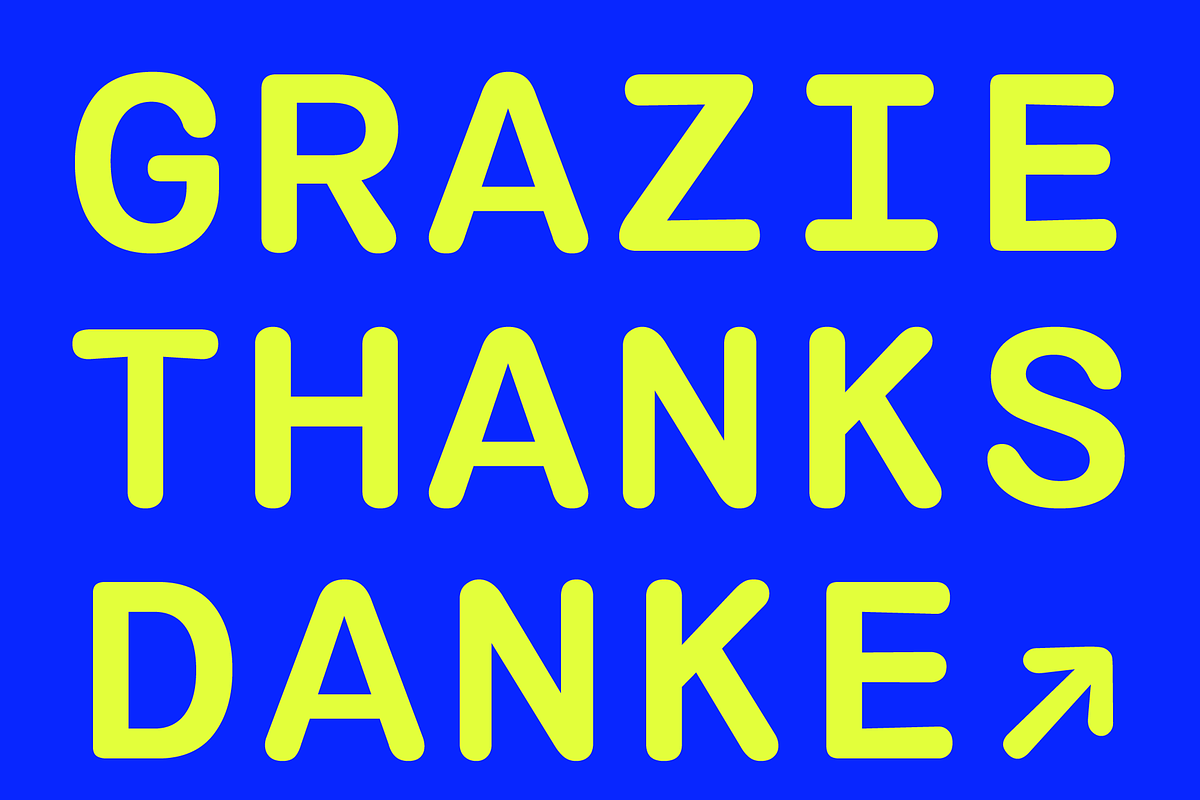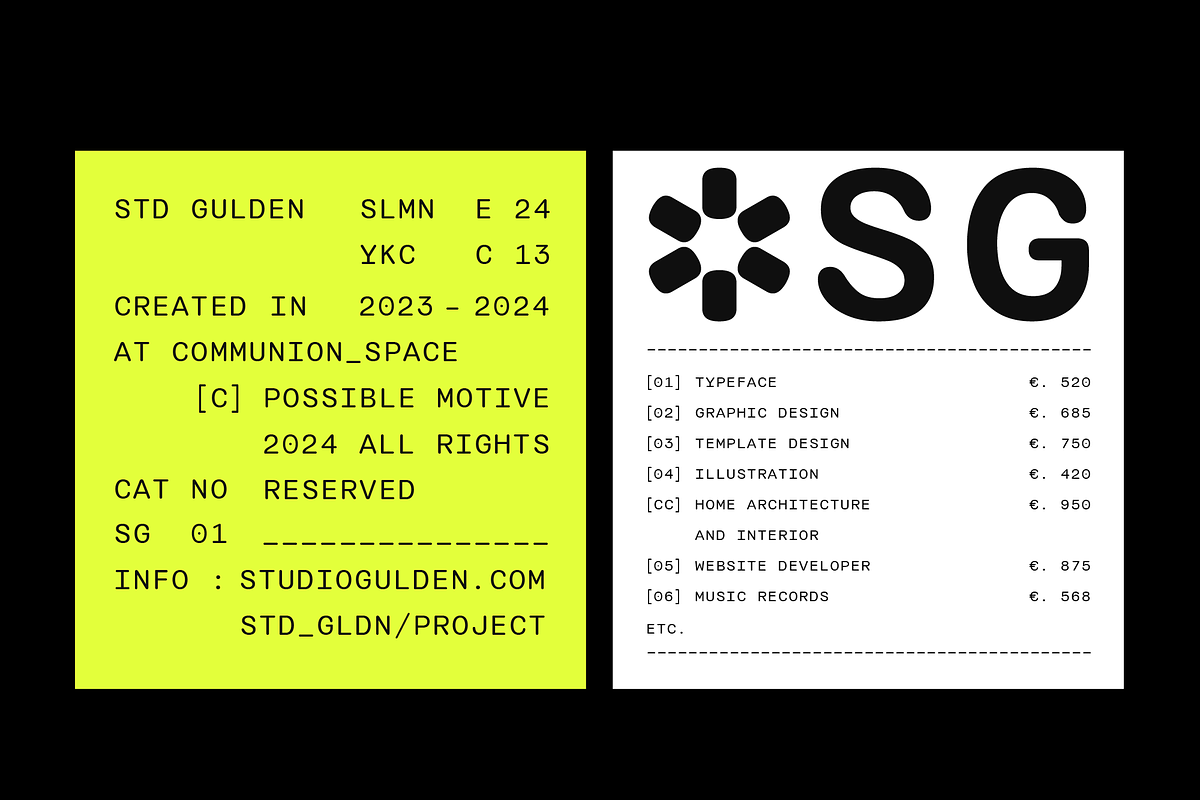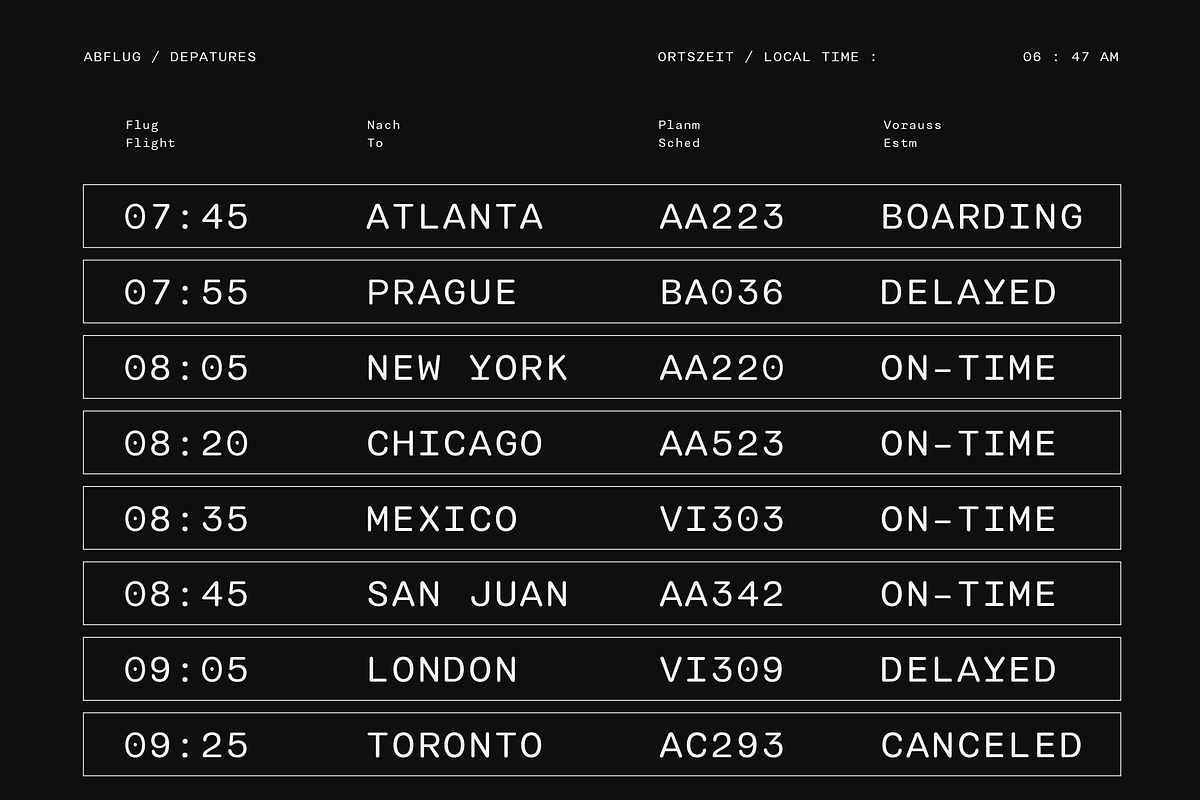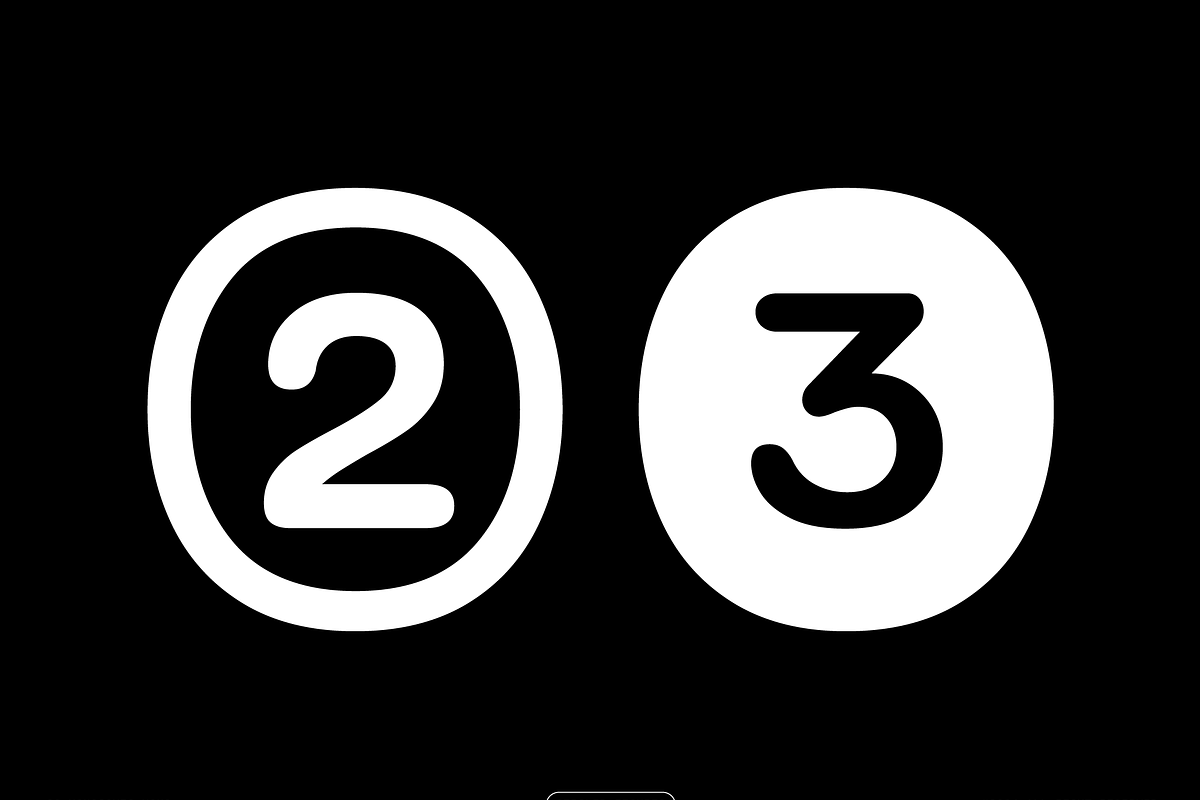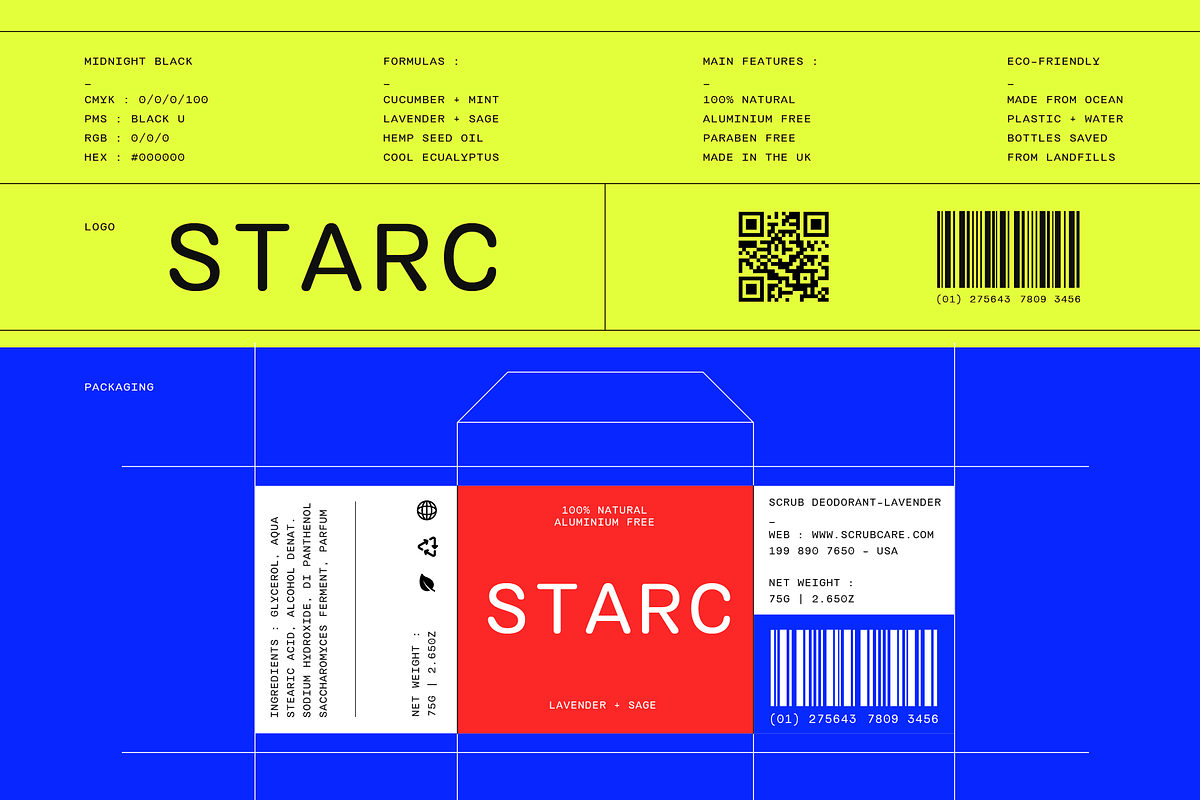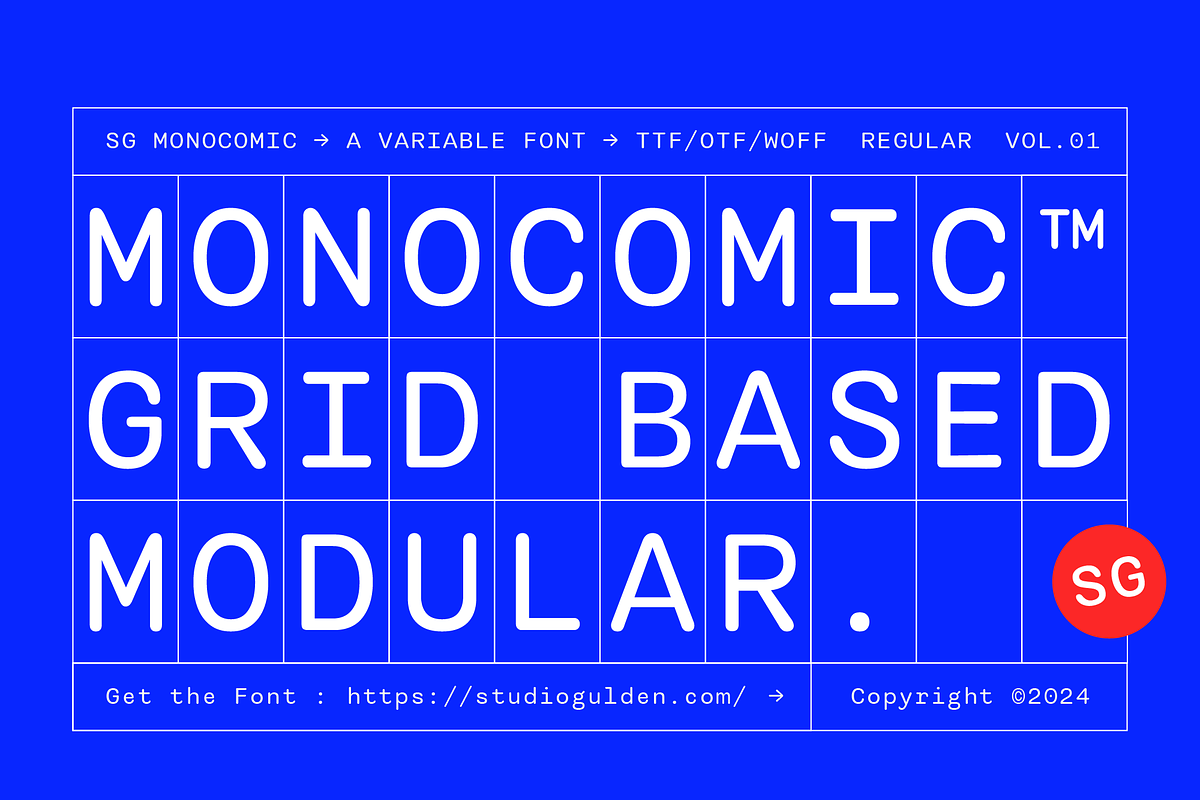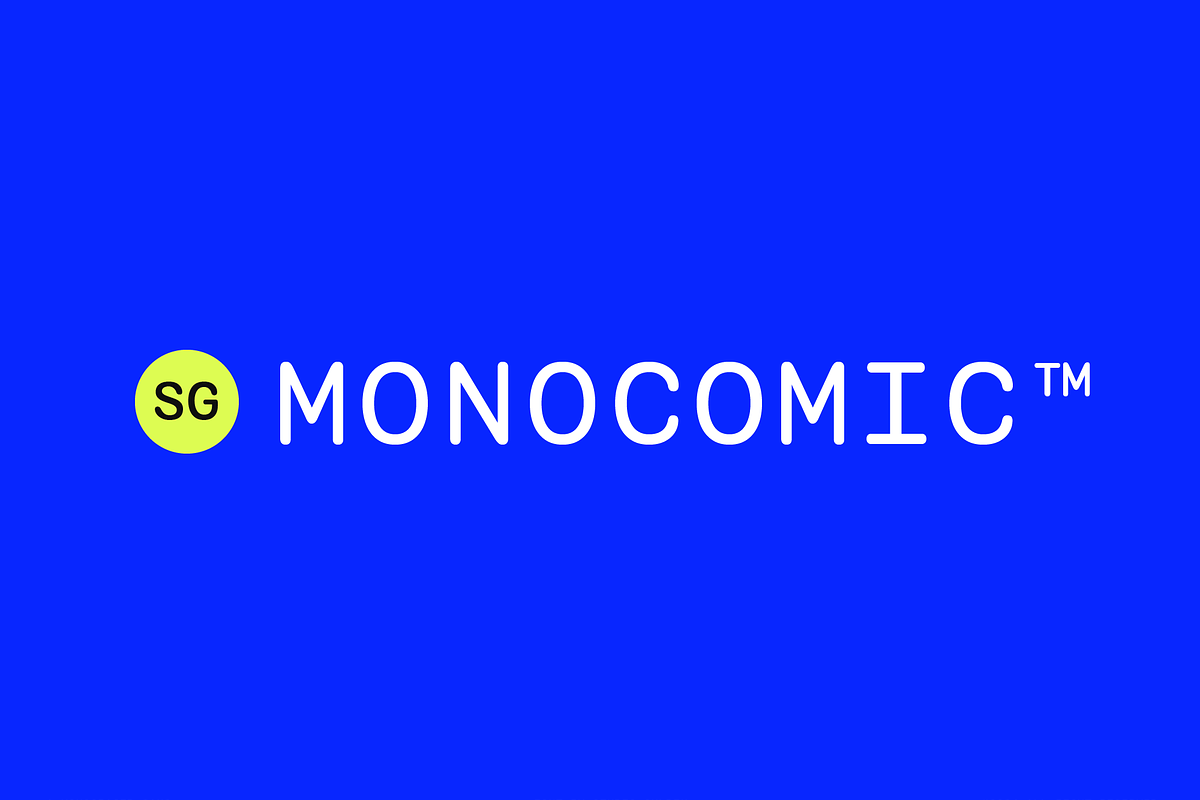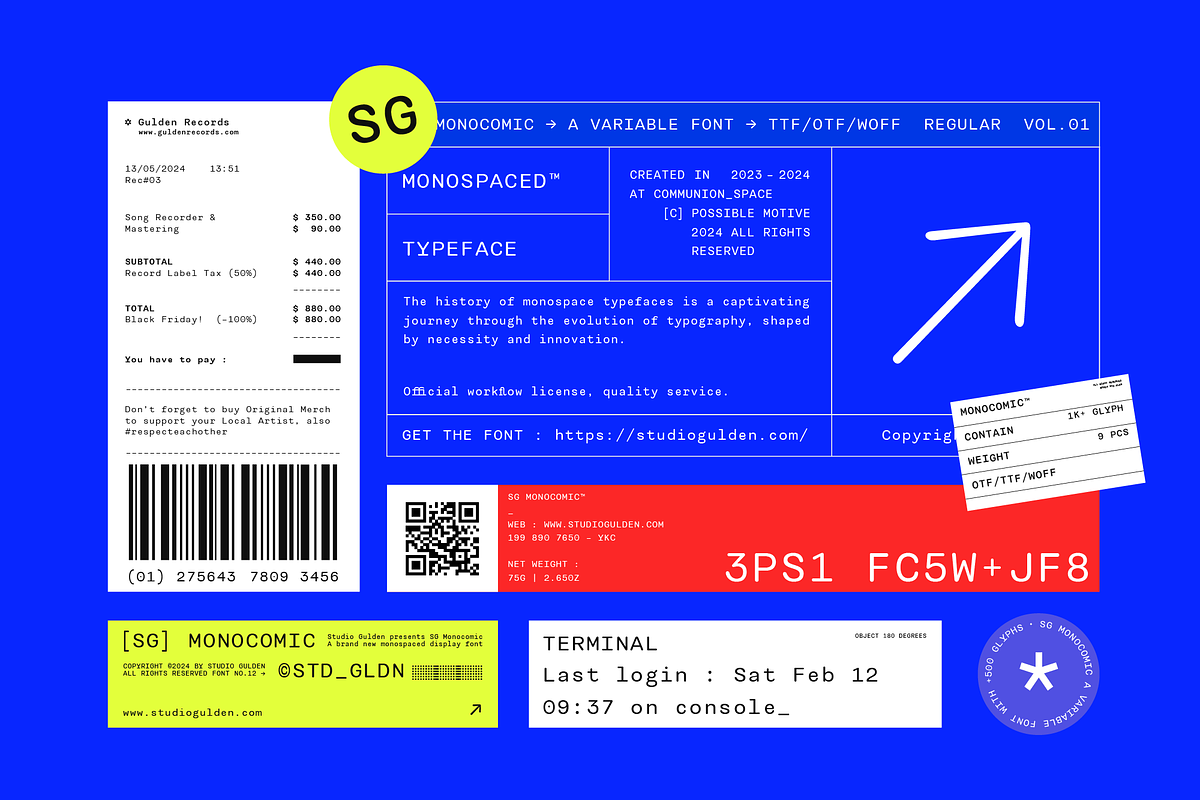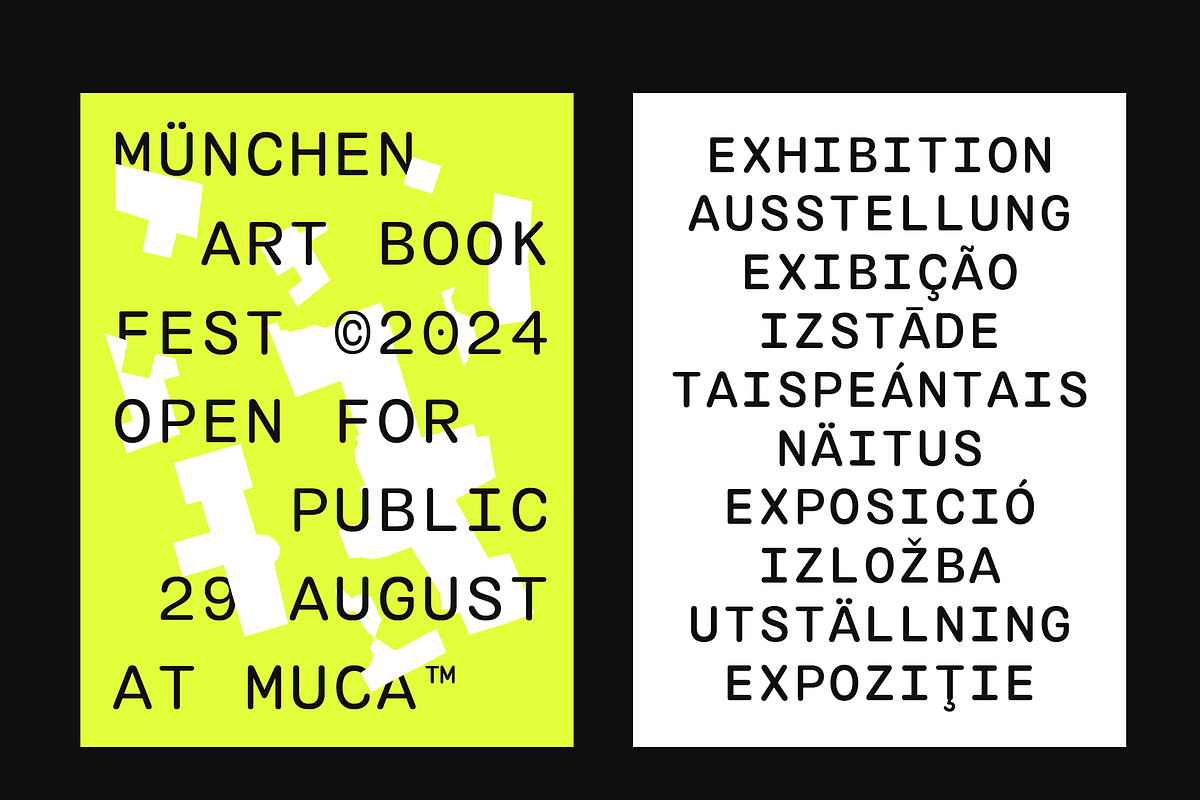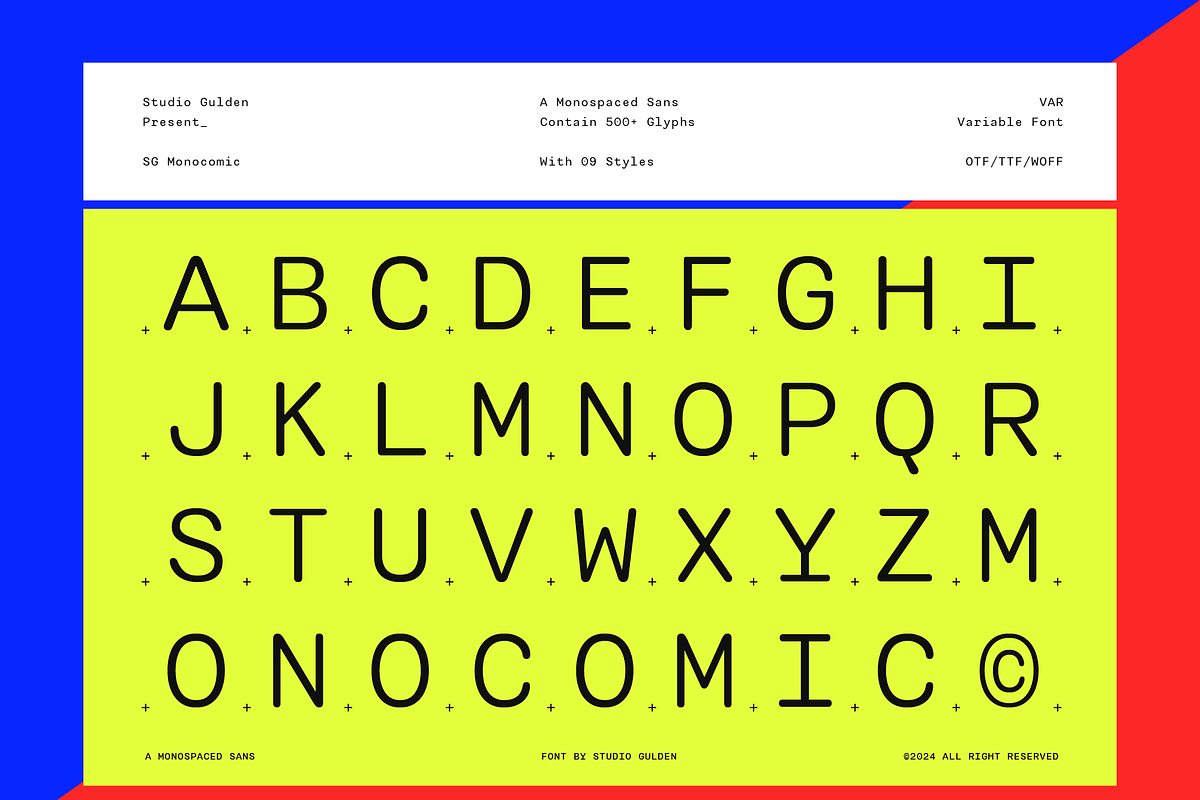
SG - MONOCOMIC
Dive into the world of SG Monocomic, a brand new monospaced font family overflowing with versatility and character. Offering a spectrum of nine weights, from thin and delicate to ultra bold and impactful, SG Monocomic effortlessly adapts to your every design need. Impeccably engineered for precision, it's monospacing guarantees perfect character alignment, making it the ideal choice for coding, crafting clean tabular layouts, and tackling any project that demands consistent spacing. Subtly rounded corners add a touch of personality while maintaining exceptional legibility, even when displayed in smaller sizes.
Beyond the digital realm, SG Monocomic transcends the digital world with its clean, geometric structure and subtle curves that translate beautifully to print. A character powerhouse, SG Monocomic goes beyond the basics by equipping you with a comprehensive character set that extends far beyond the standard Latin alphabet. Explore a vast collection of characters, numbers, punctuation, currency symbols, math symbols, and diacritics, ensuring you have everything you need to create impactful content.
- Alternates Stylistic
- Fraction, Denominators, Localized forms, Numerators, Oldstyle Figures, Subs & Superscript
- Numbers, Symbols, Arrows, Punctuation, Diacritics
- Standard Ligatures, Discretionary Ligatures